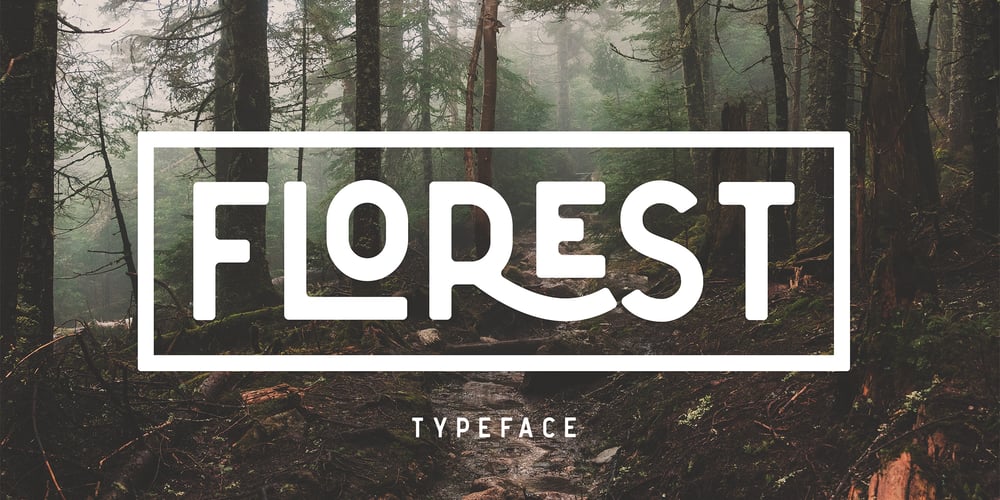
Florest Display Font Family was designed by Kurt Harahap and published by Kaligra.co. Florest Display contains 2 styles and family package options. Florest Display is a clean bold and simple vintage sans serif font, with smooth edges and touch of many beautiful alternate characters make this font look Elegant & stylist. It contains an uppercase alphabet with numbers and symbols. Designed with Stylistic Alternates and Contextual Alternate in some characters that allows you to mix and match pairs of letters to fit your design.